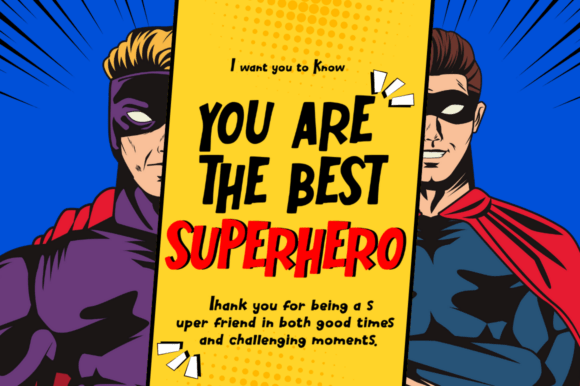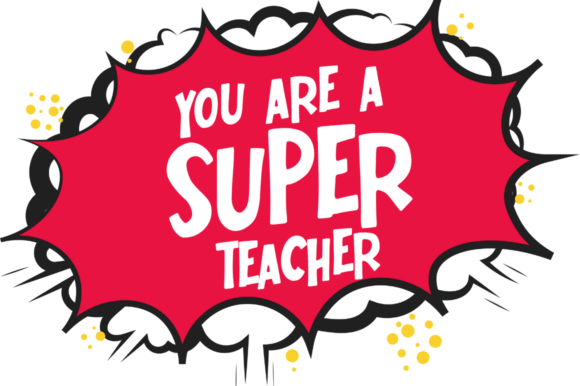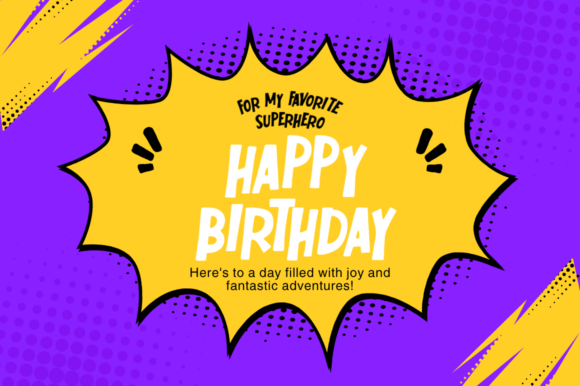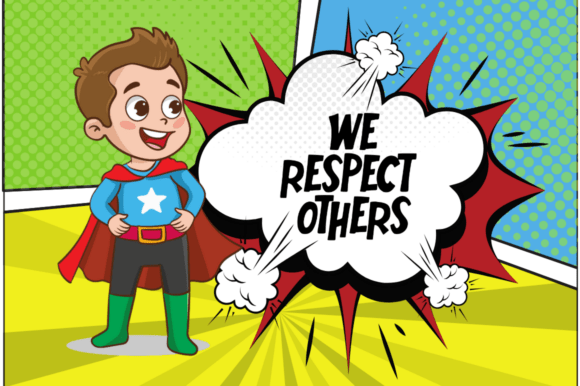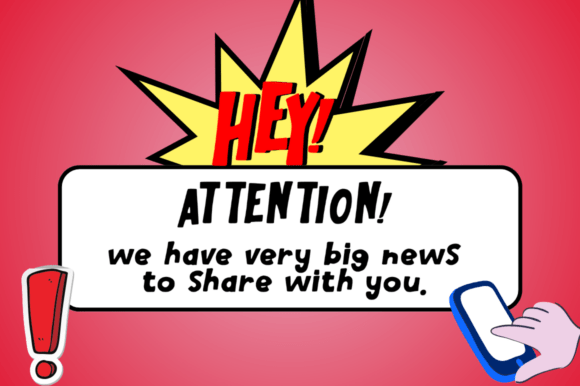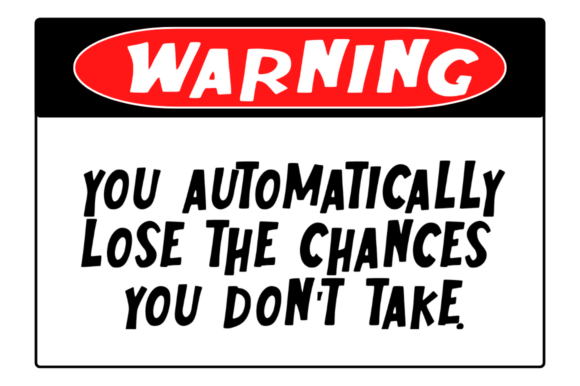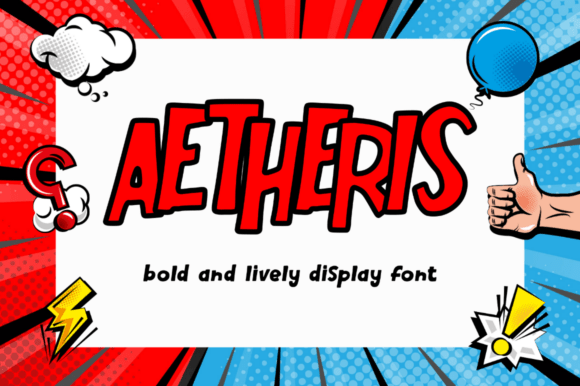
Introducing Aetheris Font: The Ultimate Bold and Lively Display Font
Are you tired of using the same old fonts for your designs? Look no further! Aetheris Font is here to revolutionize your creative projects with its bold, lively, and playful twist. This display font is perfect for designers and crafters who want to add a burst of personality and charm to their work.
The Retro Twist that Sets Aetheris Apart
Aetheris Font boasts a fun retro twist that makes it stand out from the crowd. Its playful curves and energetic letterforms evoke a sense of nostalgia and whimsy, making it ideal for projects that require a touch of playfulness. Whether you’re working on a cheerful party invitation, a quirky logo, or a kids-themed design, Aetheris is the perfect choice.
Endless Design Possibilities with Aetheris
Aetheris Font is incredibly versatile, making it suitable for a wide range of design projects. Here are just a few ideas to get you started:
- Branding: Use Aetheris to create bold and eye-catching logos that showcase your brand’s personality.
- Poster Headlines: Add a pop of color and energy to your posters with Aetheris’ playful letterforms.
- Social Media Graphics: Create engaging social media graphics that stand out from the crowd with Aetheris’ unique style.
- YouTube Thumbnails: Use Aetheris to create eye-catching thumbnails that grab viewers’ attention.
- Kids-Themed Designs: Aetheris is perfect for kids-themed designs, such as children’s books, party invitations, and educational materials.
The Benefits of Using Aetheris Font
So, what makes Aetheris Font so special? Here are just a few benefits of using this amazing display font:
- Handcrafted and Expressive: Aetheris has a handcrafted, expressive feel that adds a touch of personality to your designs.
- Clean and Readable: Despite its playful nature, Aetheris remains clean and readable, making it perfect for use in a variety of design projects.
- Unique and Versatile: Aetheris is a one-of-a-kind font that can be used in a wide range of design projects, from branding to social media graphics.
Adding Aetheris to Your Creative Toolbox
If you’re looking to take your designs to the next level, it’s time to add Aetheris Font to your creative toolbox. With its bold and lively style, Aetheris is sure to become a go-to font for designers and crafters who want to create stylish and upbeat designs.
Tips for Getting the Most Out of Aetheris Font
Here are a few tips for getting the most out of Aetheris Font:
- Experiment with Colors: Aetheris looks amazing in a variety of colors, so don’t be afraid to experiment and find the perfect hue for your design.
- Play with Pairings: Aetheris can be paired with a variety of fonts to create a unique and stylish look. Try pairing it with a clean sans-serif font for a bold and modern look.
- Use it Boldly: Aetheris is a bold font, so don’t be afraid to use it boldly. Use it to create eye-catching headlines and titles that grab attention.
| Font Name | Aetheris Font |
| Author | Arzaq’s Studio |
In conclusion, Aetheris Font is a bold and lively display font that’s perfect for designers and crafters who want to add a burst of personality and charm to their work. With its playful curves and energetic letterforms, Aetheris is ideal for a wide range of design projects, from branding to social media graphics. So, what are you waiting for? Download Aetheris Font today and start creating designs that stand out from the crowd!